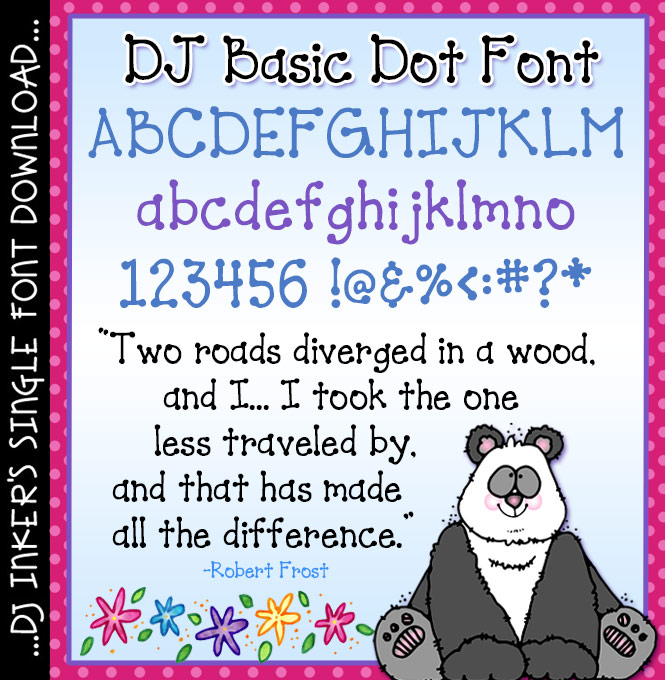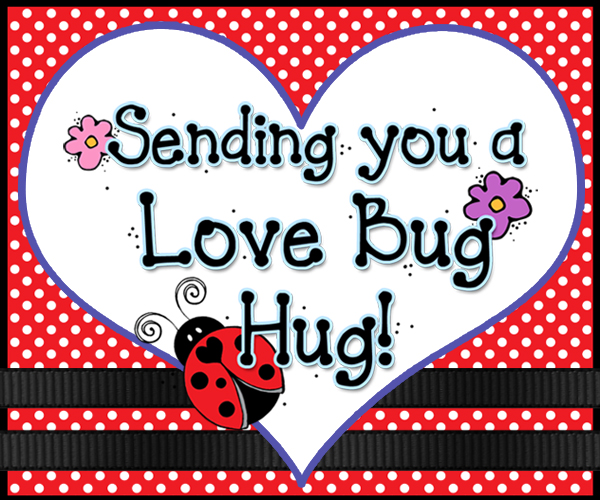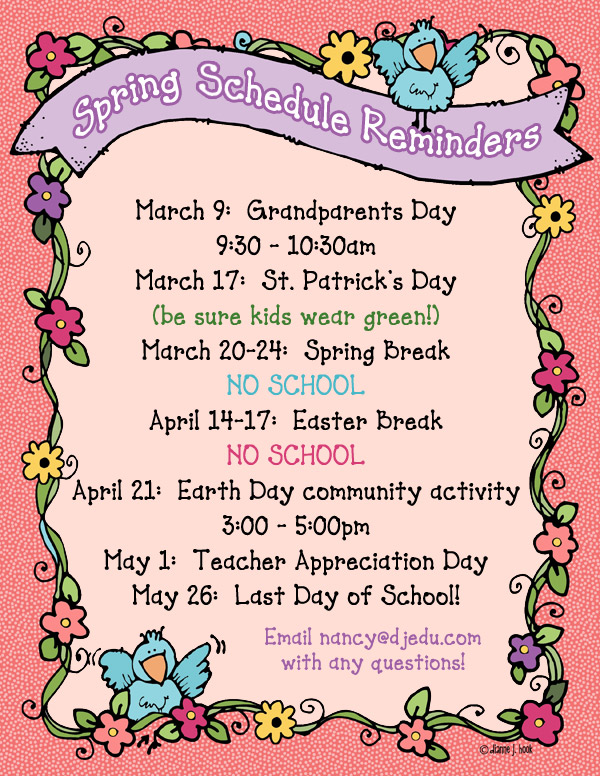
A cute dot letter font to add a smile to typing by DJ Inkers
DJ Basic Dot Font Download
A cute dot letter font to add a smile to typing by DJ Inkers
DJ Basic Dot Font Download
DJ Inker's Basic Dot font will be perfect for adding a little cute to the mix while you're creating. This darling dot lettering will be great for home, school, office & crafting, plus it looks good in any size and color. Type-up your announcements, fliers, notes, newsletters, decorations, baby books and more with a smile from DJ Inkers.